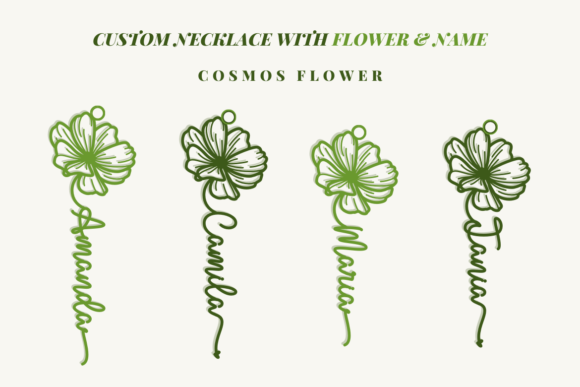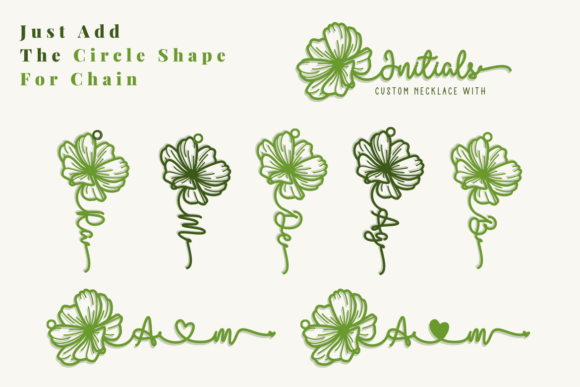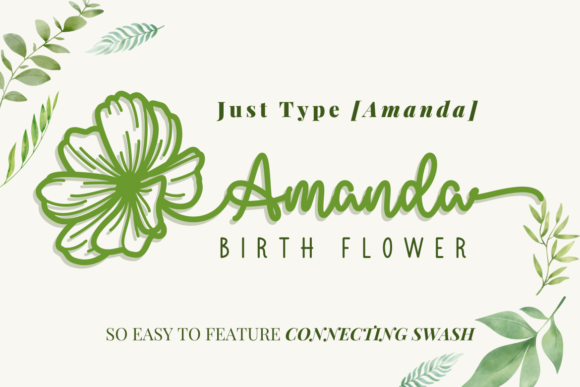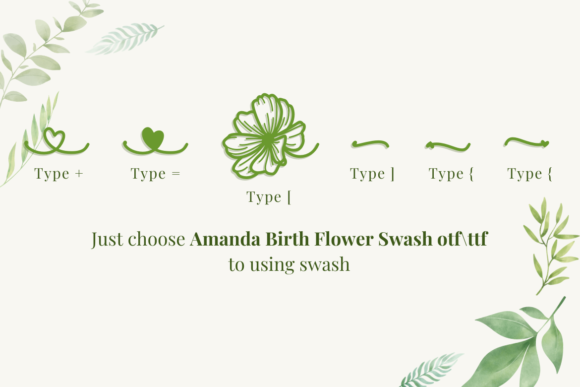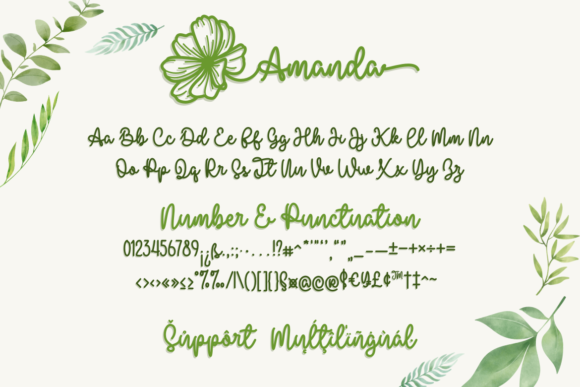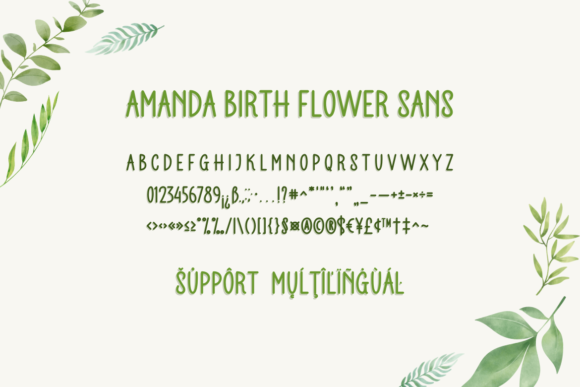
The Perfect Font for Your Creative Masterpiece
As a creative, you know that moment when you’re brainstorming a new project and the perfect font suddenly pops into your mind. It’s like a spark of inspiration, guiding your vision towards a stunning reality. For me, that moment came when I stumbled upon the Amanda Birth Flower Duo Font – a timeless, elegant combination of script and sans serif fonts.
With Amanda Birth Flower Duo Font, you can elevate any design from ordinary to extraordinary. Whether you’re creating a beautiful Instagram post, a heartfelt birthday card, or a DIY project that requires a touch of sophistication, this font is sure to turn your ideas into a work of art. Its versatility and timeless charm make it a valuable addition to any designer’s toolkit.
Amanda Birth Flower Duo Font Key Features
- Font Styles: This font includes two unique styles – Amanda and Amanda Duo, each with its own personality and characteristics.
- Font Size: This font is available in 6 font sizes, ranging from 12 to 72 points, making it suitable for a variety of design applications.
- Resolution: Designed to be high-resolution, making it perfect for printing and digital use at 300 DPI and above.
- Unique Characteristics: Amanda Duo font features a beautiful combination of handwritten and script elements, with intricate details and flourishes, making it perfect for creative and elegant designs.
Amanda Birth Flower Duo Font Review
Overall, I found the Amanda Birth Flower Duo Font to be a beautiful and unique addition to any design project. ✨ The font’s cursive style and elegant curves make it perfect for creating a whimsical and feminine feel. I particularly enjoyed using it for titles and headings, as it added a touch of sophistication to the design.
However, there are a few limitations to consider: ⚠️ The font’s cursive style can make it difficult to read at smaller sizes, so it’s best to use it for larger titles and headings. Additionally, the font’s complexity may lead to slower loading times, especially if you’re using it on a website. Finally, the font’s limited character set may not be suitable for longer blocks of text.
Here are some specific pros and cons to consider:
- ✨ Unique and elegant design
- Perfect for titles and headings
- Beautiful cursive style
- ⚠️ May be difficult to read at smaller sizes
- ⚠️ May lead to slower loading times
- ⚠️ Limited character set
Overall, I would recommend the Amanda Birth Flower Duo Font to designers looking to add a touch of elegance and whimsy to their projects. However, it’s essential to consider the font’s limitations and use it judiciously to ensure the best results.
Use the Amanda Birth Flower Duo Font for birth flower-inspired designs, such as:
- Birthday cards and invitations
- Personalized gifts and stationery
- Wedding and baby shower decorations
Experiment with different font sizes, colors, and styles to create unique and eye-catching designs.